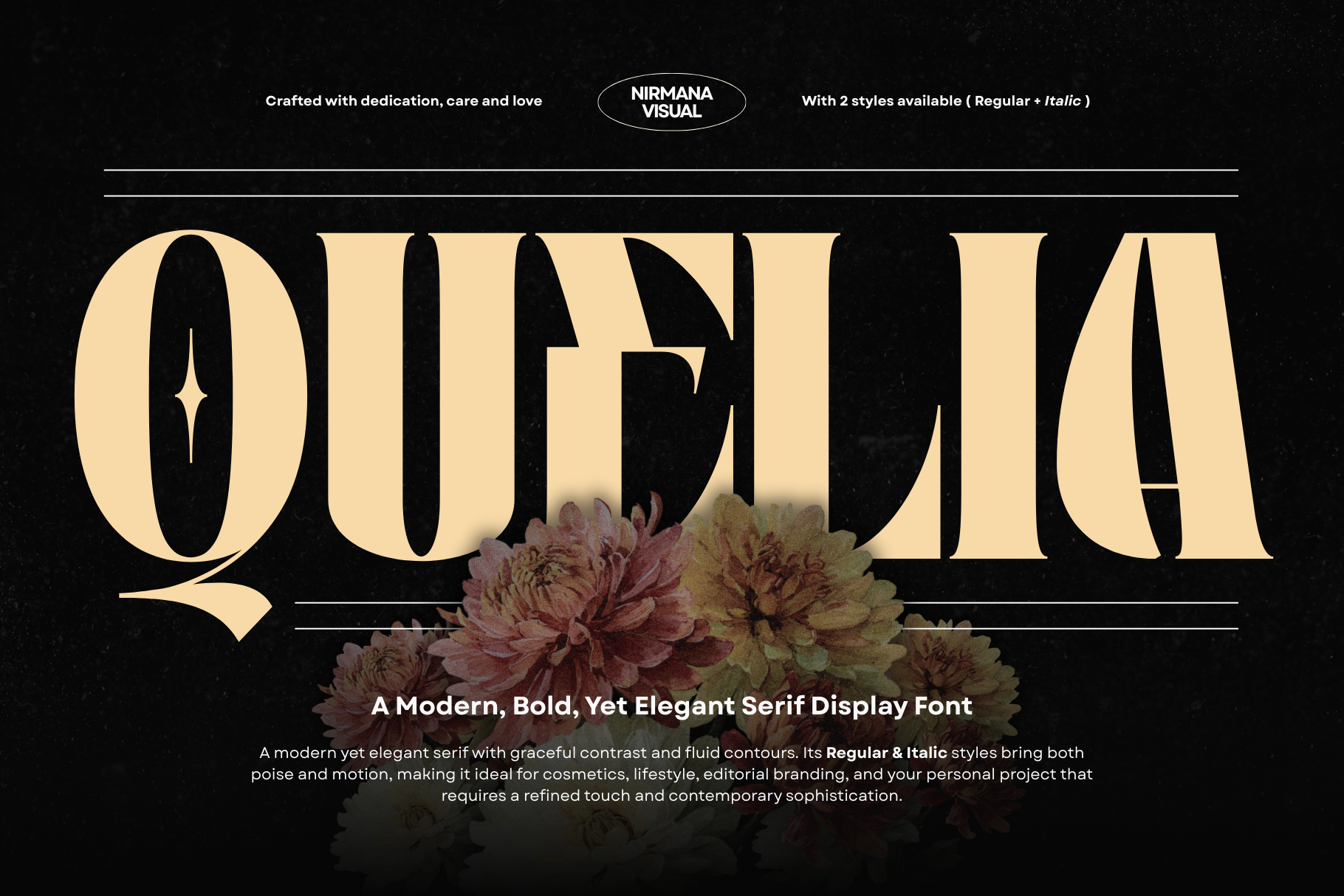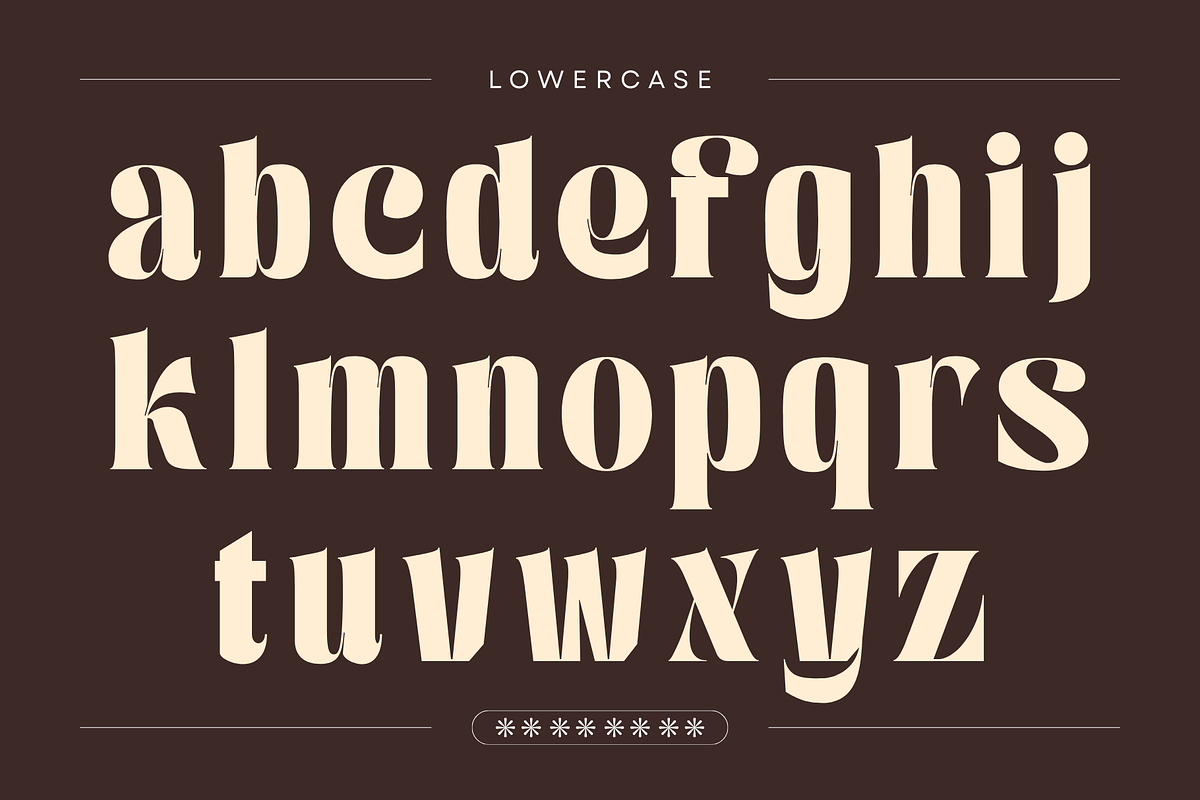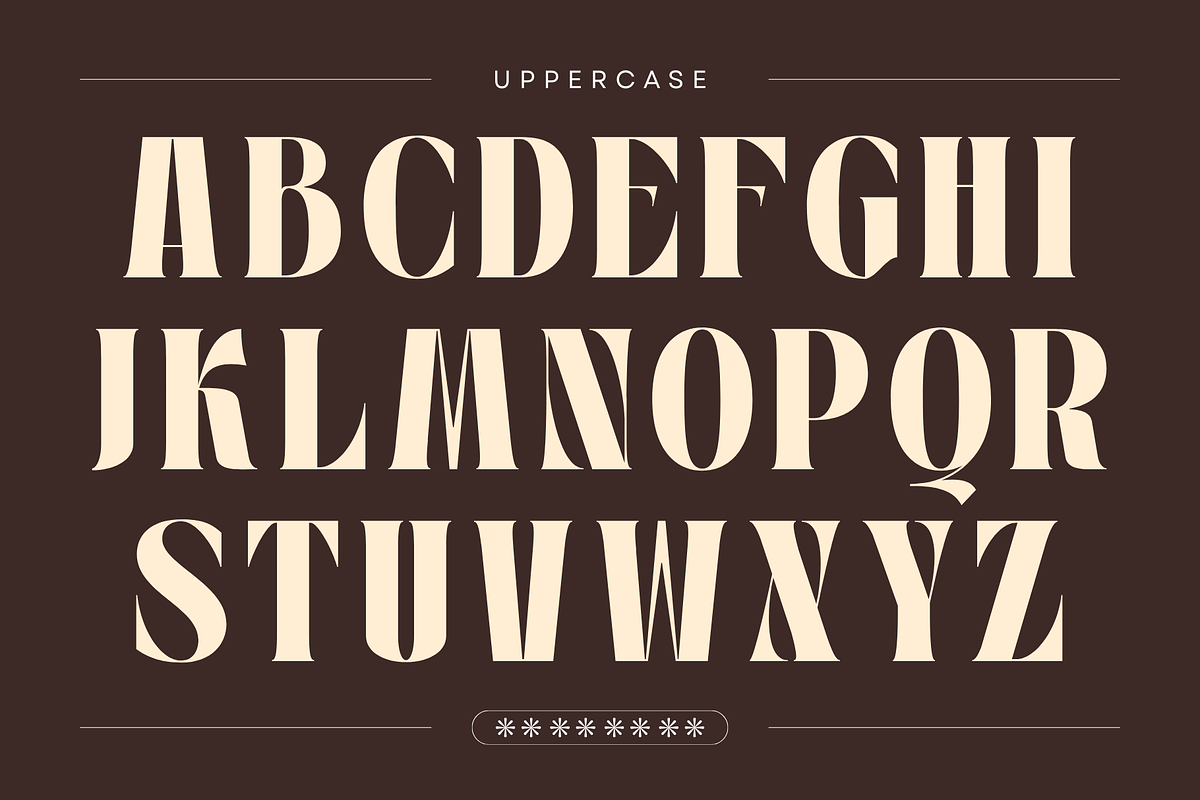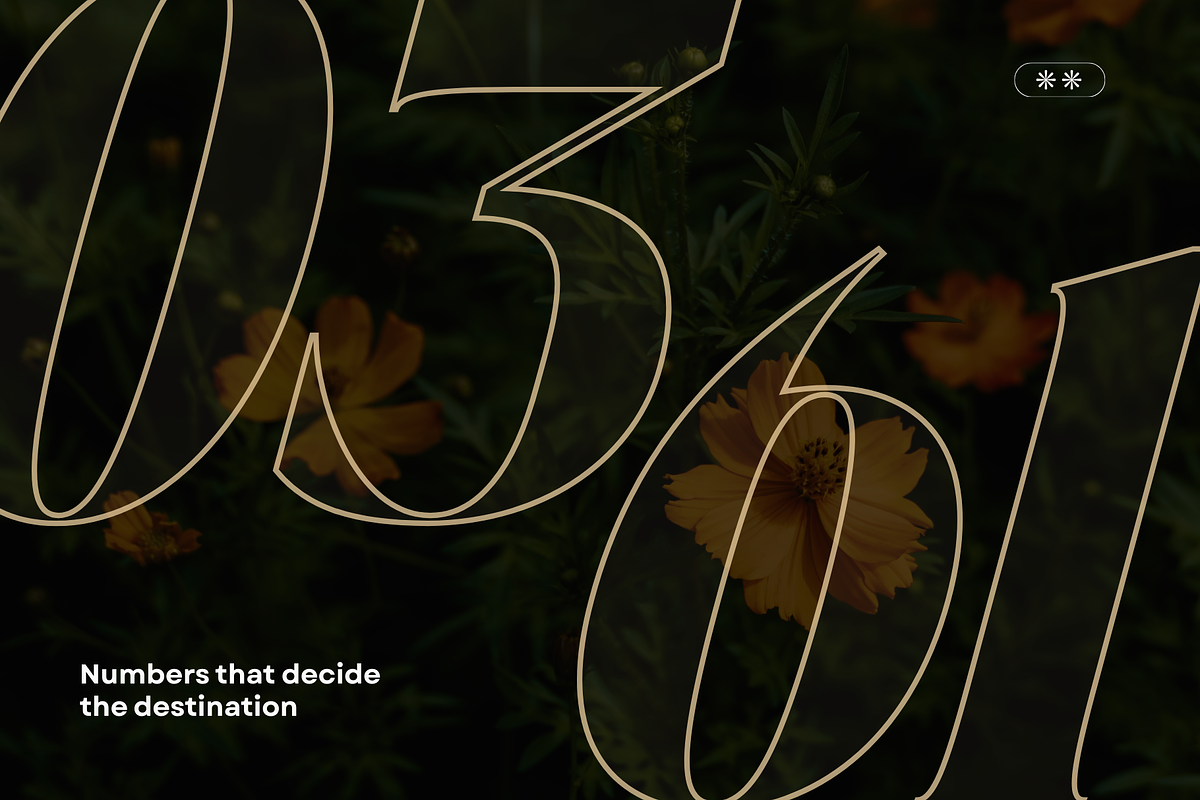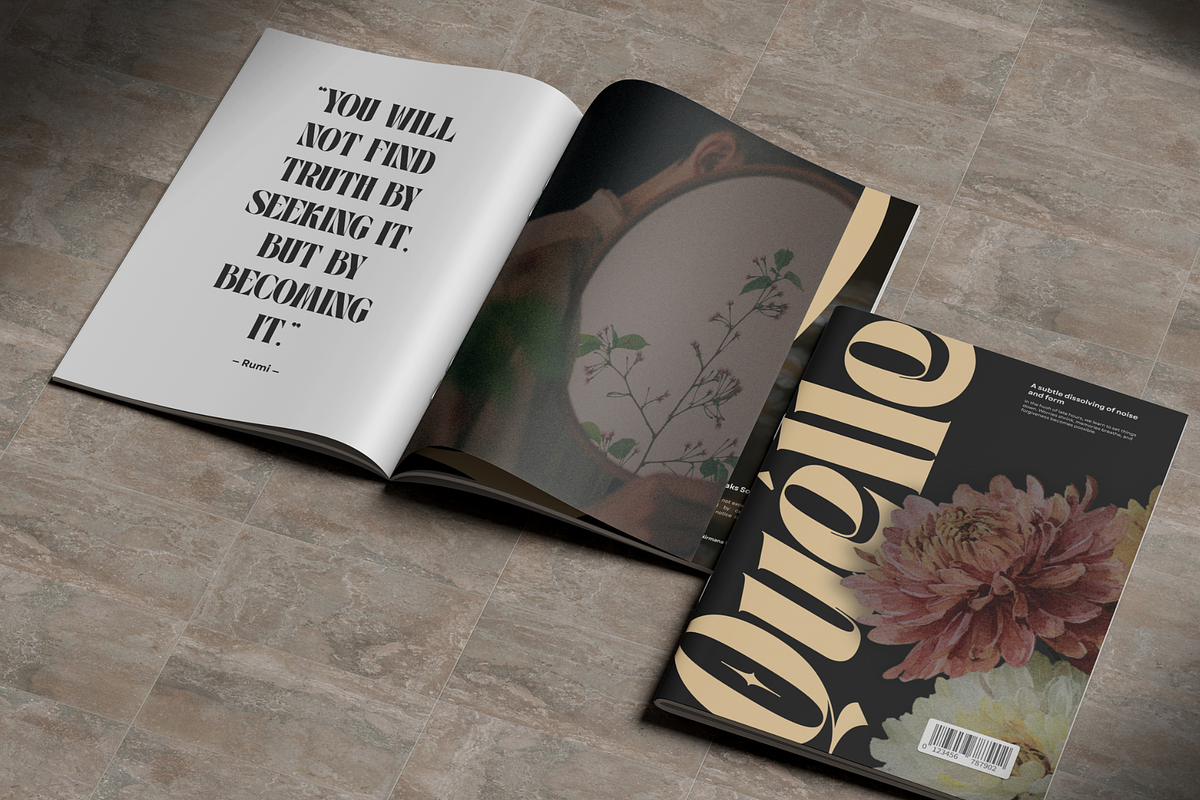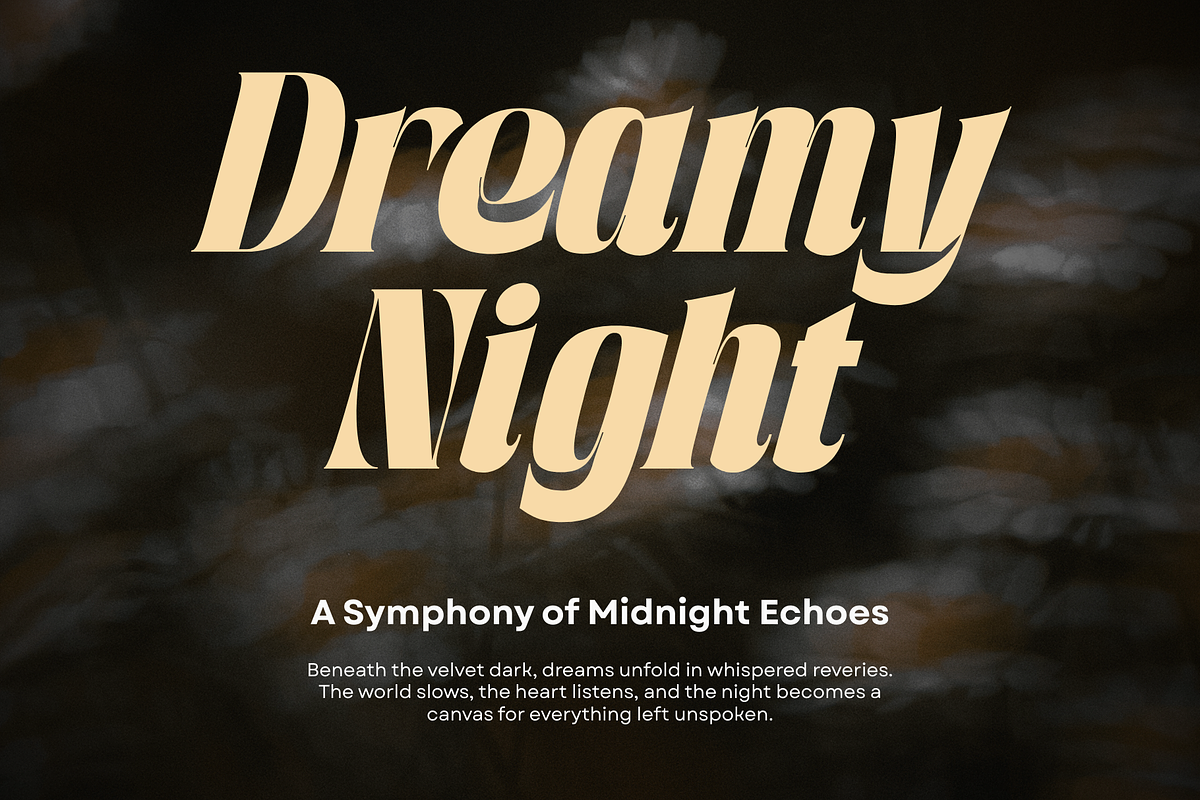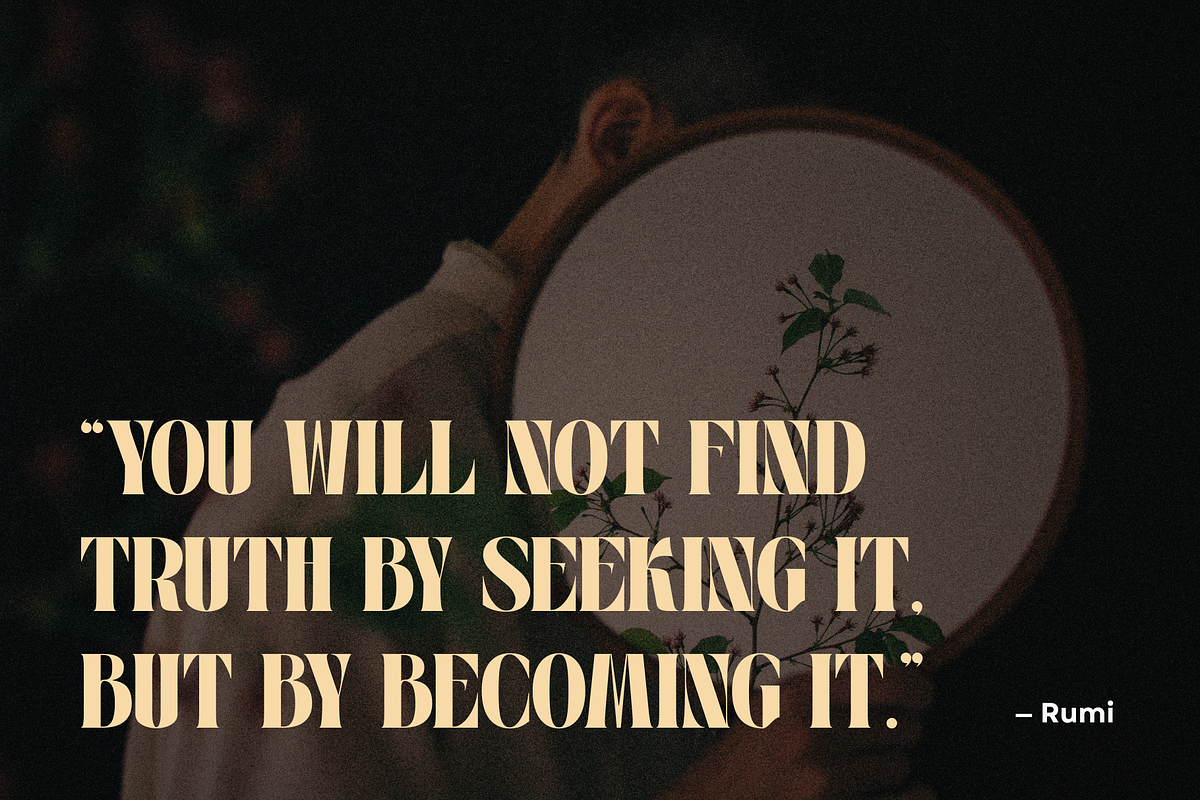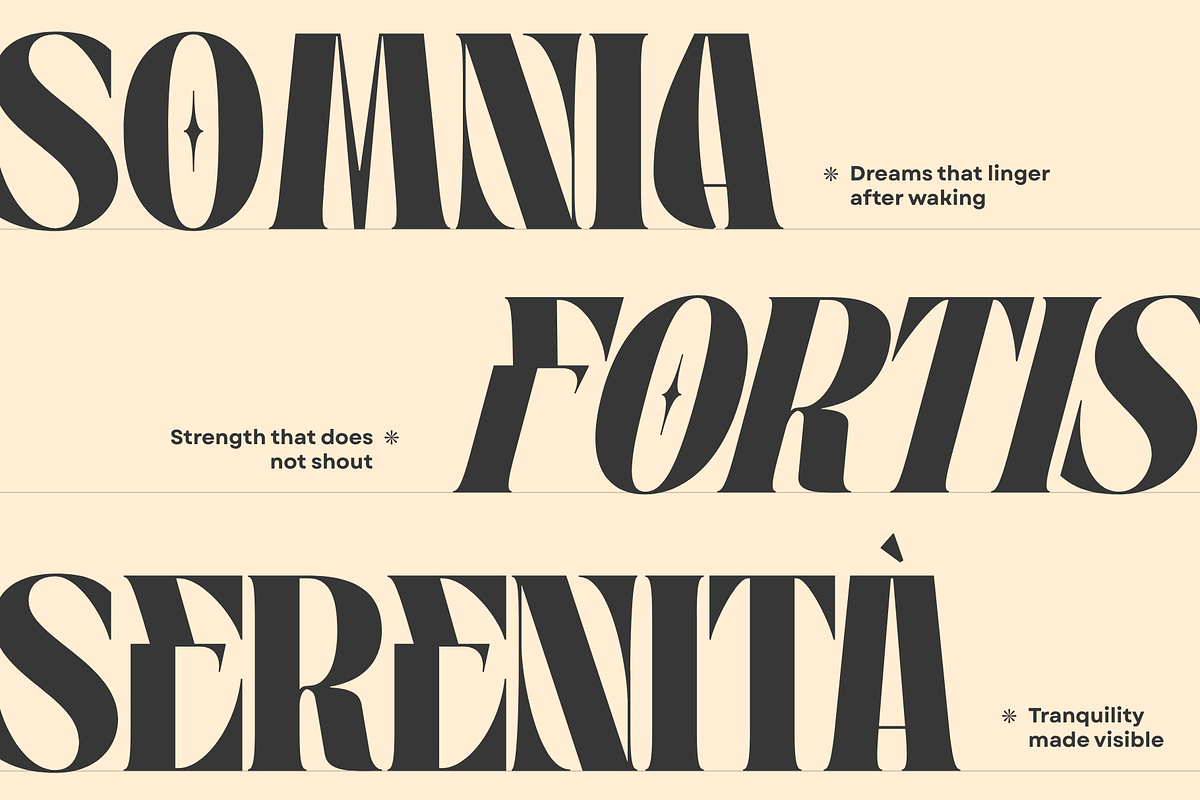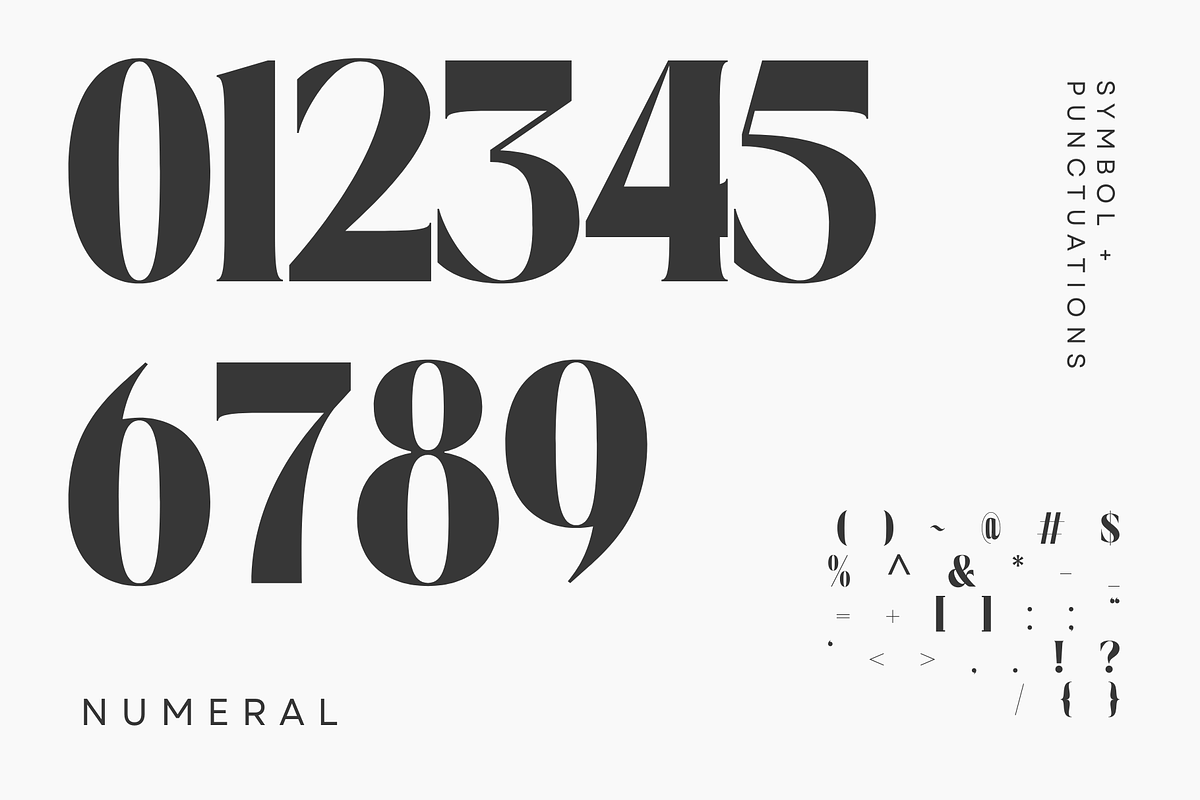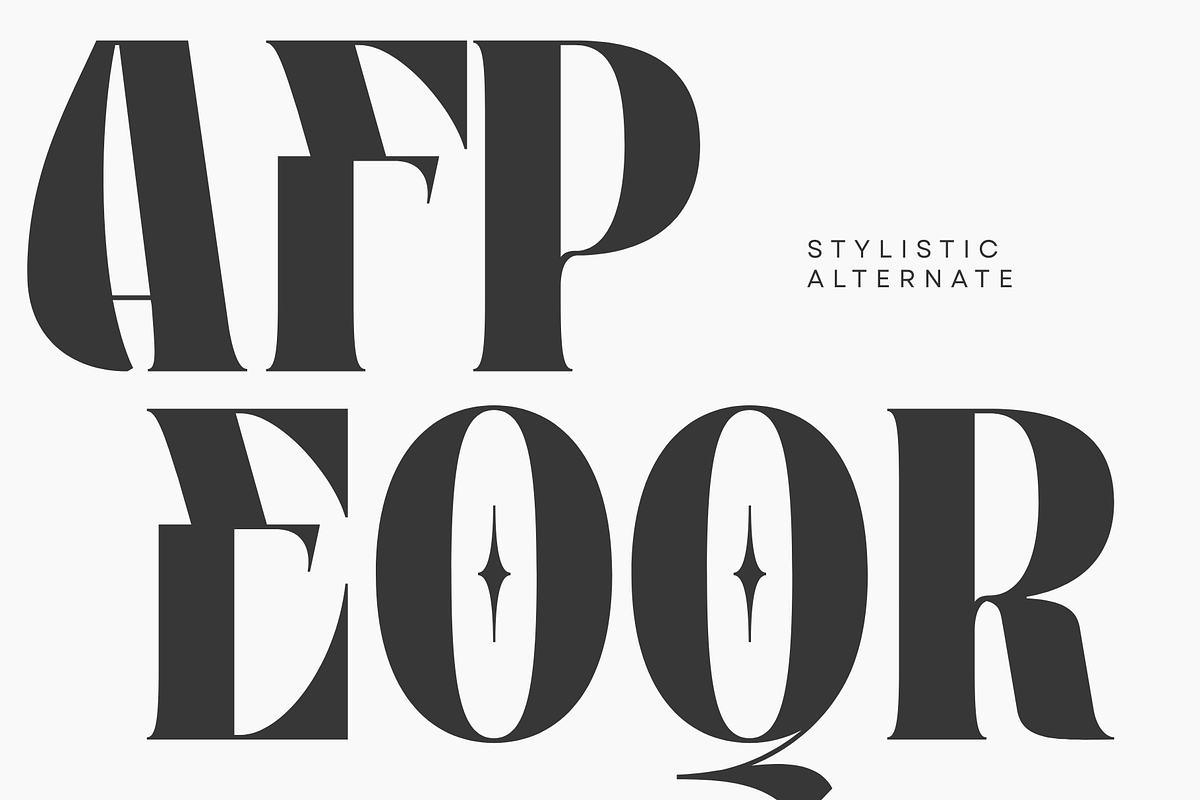
Quelia Vintage - Branding Logo Font
Quelia Vintage is a refined serif display font that blends modern elegance with timeless vintage charm. Designed with bold contrast, graceful curves, and distinctive letterforms, Quelia delivers a luxurious yet artistic presence. Its uppercase and lowercase characters feel expressive and poetic, making it perfect for branding logos, editorial titles, fashion labels, packaging, cosmetics, lifestyle brands, posters, and premium visual identities. Quelia Vintage brings warmth, character, and sophistication to every design, creating a memorable and high-end aesthetic that stands out with confidence and style.